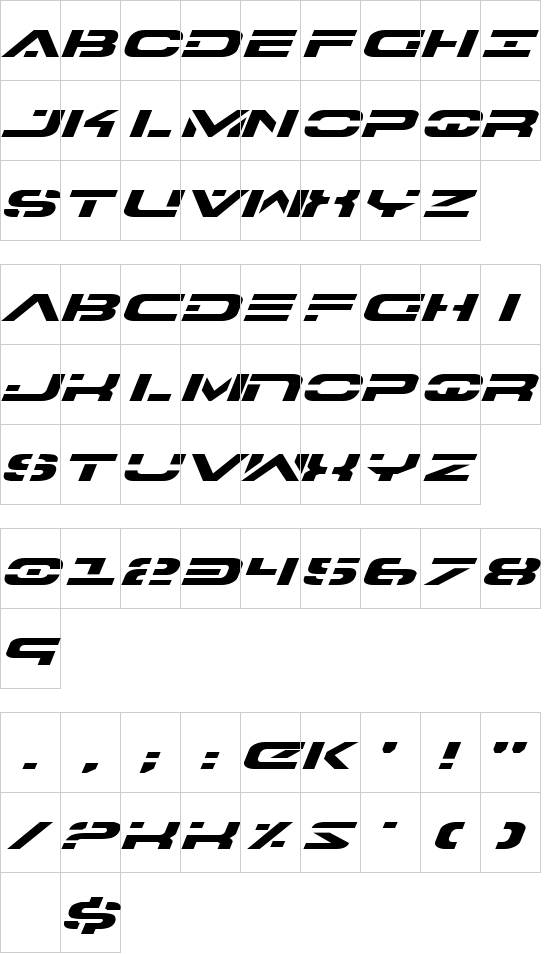
7th Service Expanded Italic is a wide, slanted sci-fi display font with sleek, high-tech letterforms in motion. The broad, leaning shapes combine a military-tech edge with a strong sense of forward drive across the line.
Use it for gaming graphics, sci-fi titles, tech posters, and branding that want a broad, dynamic futuristic look. 7th Service Expanded Italic is free to download as a TrueType file, and you can preview your own title to see how its wide, leaning letters stretch across a headline.